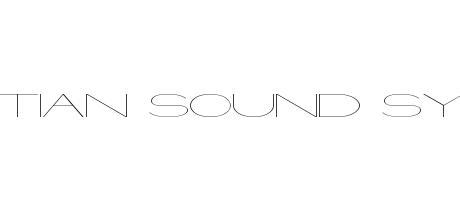
Sound System
Venetian Sound System is a minimalist sans-serif font. Its clean lines and subtle curves create a sleek, modern aesthetic. The letters are consistently weighted, conveying a sense of balance and sophistication. It suggests a high-end, perhaps audio-related, brand identity. The overall feel is understated elegance.